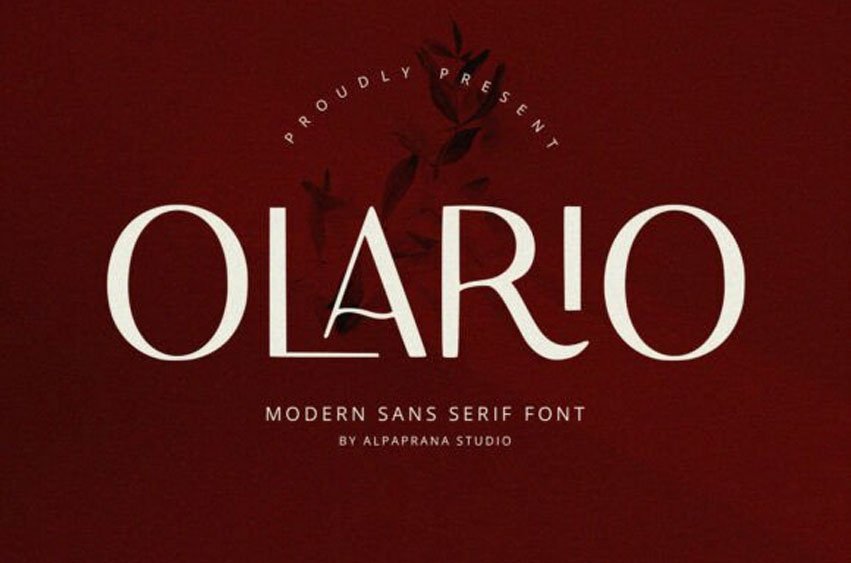
Olario Font is a sans serif font with elegant and modern feels.
It will be perfectly used for magazine, packaging, posters, shopping bags, t-shirts, book covers, photography, special events and other design projects.